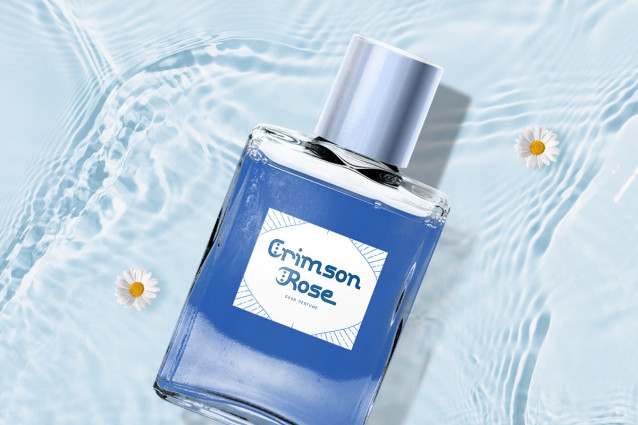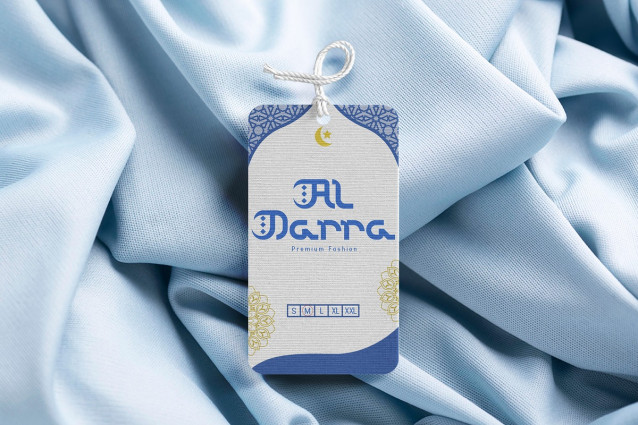
Jamalu Font
Jamalu Font is a modern Arabic style font that beautifully merges contemporary design with traditional Arabic elements. With its sleek lines and graceful curves, this typeface is perfect for branding, packaging, posters, and invitations. Whether used for bilingual projects or creative artwork, Jamalu ensures your message is conveyed with elegance and cultural significance.
Designed to balance readability and visual appeal, Jamalu works seamlessly in both display and text settings. Its versatile structure makes it an excellent choice for digital platforms, corporate identities, and decorative signage. Ideal for projects that require an Arabic flair, it delivers sophistication while remaining relevant to modern aesthetics.
Elevate your designs with Jamalu a font that bridges tradition and innovation to create an unforgettable visual presence.